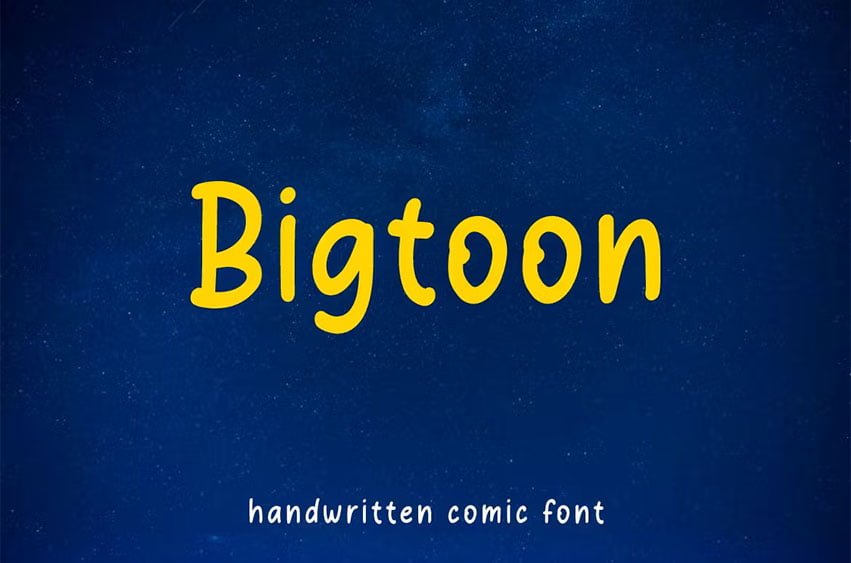
Bigtoon Font is a bold comic font. Bigtoon can be used in any work such as comic books, posters, school, flyers, book titles, advertisements, social media content, logo and many more.